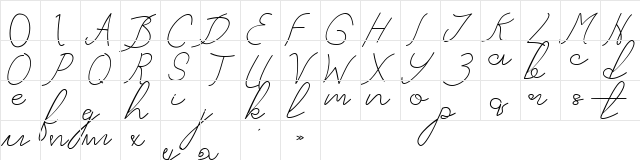
Adelle Regular
| Designer | darnowiyanto |
Design Context for Adelle Typeface
Adelle is a composed and adaptable typeface that performs quietly and consistently across a wide range of design contexts.